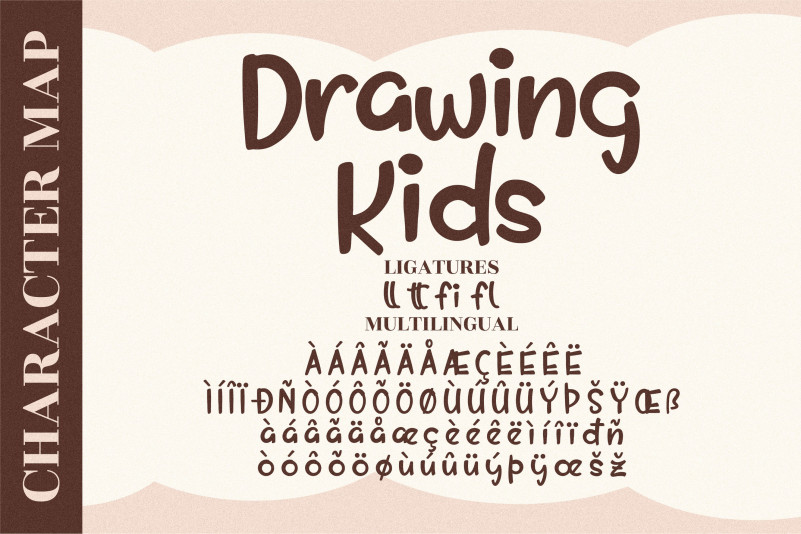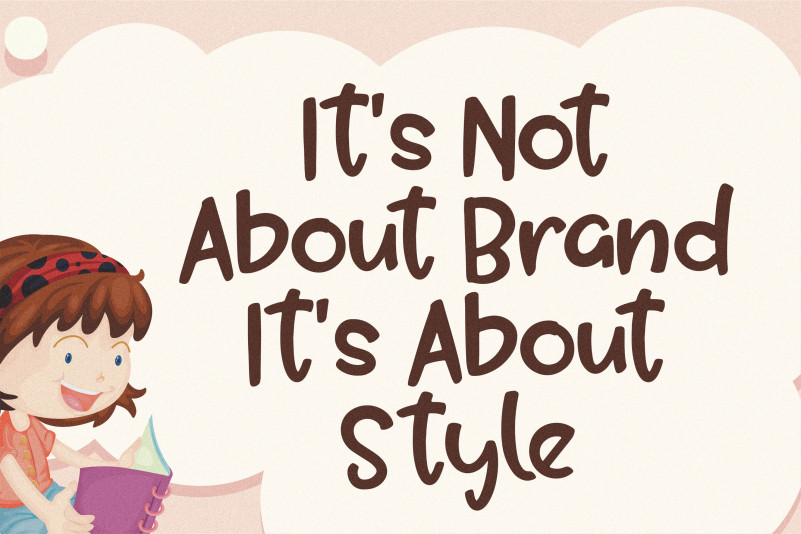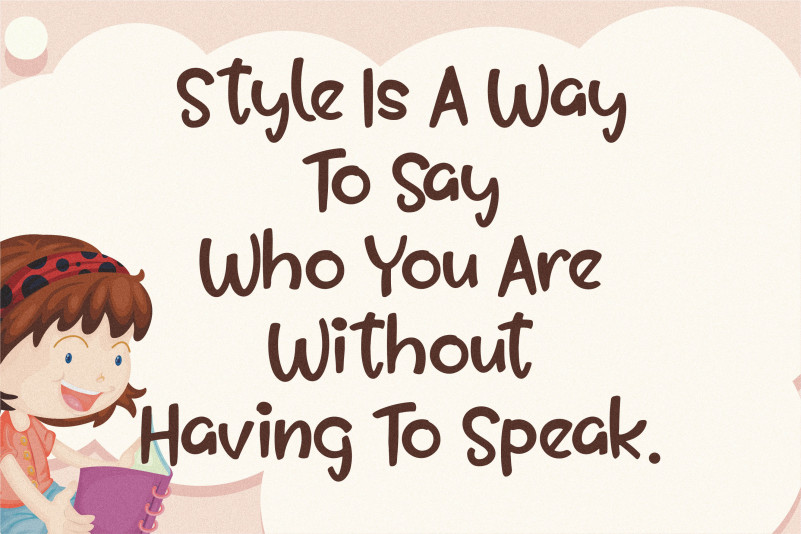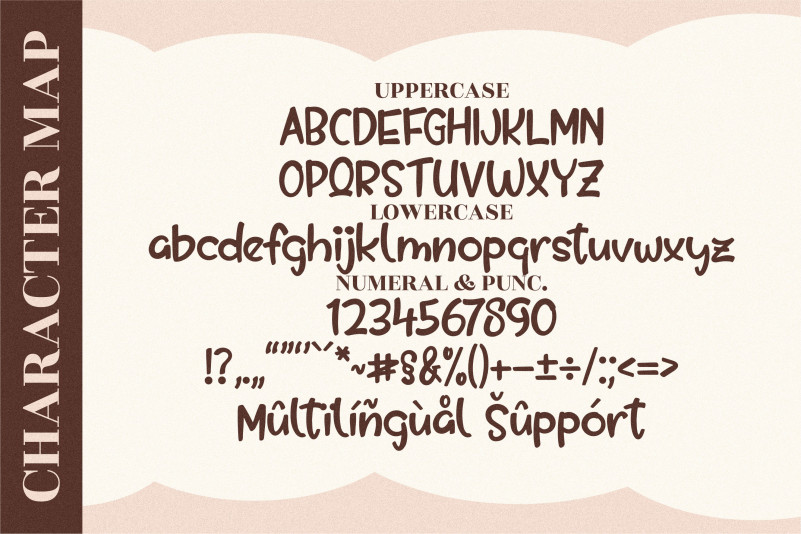
Drawing Kids Font
Drawing Kids Display Font
This is a cute, friendly and quirky display font. It can easily be matched to an incredibly large set of projects related to children or school, so add it confidently notice how it makes them stand out!